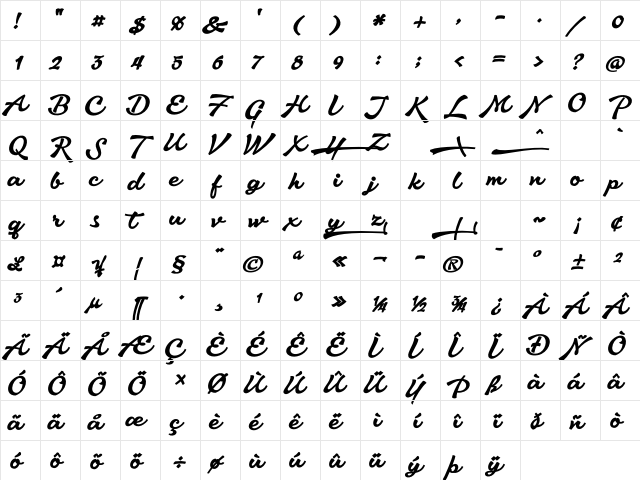
Aromia Script Bold Regular
| Designer | Mans Greback |
Design Context for Aromia Script Bold Typeface
Aromia Script Bold flows with the natural rhythm of handwritten lettering, making it ideal for designs that call for warmth and personal expression. The heavy weight commands attention and anchors typographic hierarchies.
Font Pairing: Combine Aromia Script Bold with a simple geometric sans for maximum contrast — the tension between flowing curves and clean structure is a classic typographic pairing.
Pro Tip: Use Aromia Script Bold for short runs of text — names, titles, or taglines. Extended body copy in script faces tires the eye quickly.